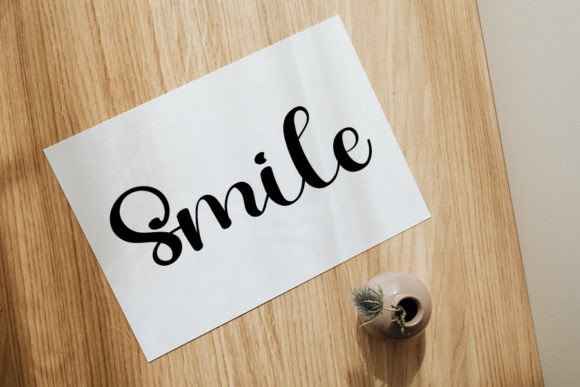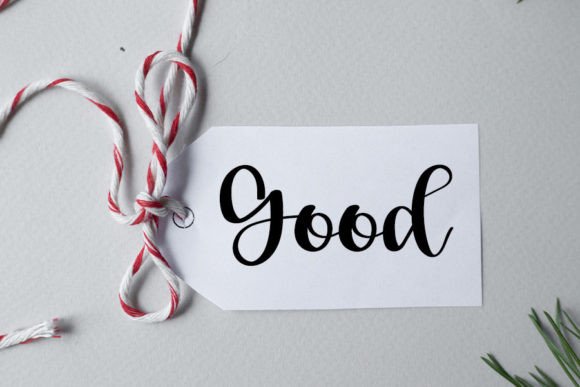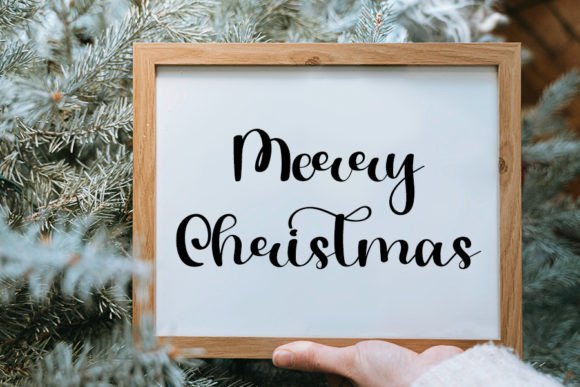
Discover the Elegance of Ghosting Font: Elevate Your Designs with a Timeless Handwritten Style
Are you on the hunt for a font that adds a touch of elegance and sophistication to your designs? Look no further than the Ghosting Font, a beautiful handwritten font that is sure to capture your heart. With its incredibly distinct and timeless style, Ghosting Font is perfect for designers and crafters looking to create spectacular designs that stand out from the crowd.
The Beauty of Ghosting Font
Ghosting Font is a neat and beautiful handwritten font that boasts an elegant touch, making it ideal for a wide range of projects. Whether you’re working on a logo, branding materials, or social media graphics, Ghosting Font is sure to bring a level of sophistication and refinement to your designs. Its unique and distinctive style is sure to set your designs apart, making them truly unforgettable.
What Makes Ghosting Font So Special?
So, what makes Ghosting Font so special? For starters, its handwritten style gives it a personal and organic feel that is hard to replicate with other fonts. The elegant touch that Ghosting Font brings to the table is perfect for designers who want to add a level of refinement and sophistication to their designs. Additionally, the font’s timeless style ensures that it will never go out of fashion, making it a great investment for designers and crafters.
Ghosting Font is incredibly versatile, making it perfect for a wide range of projects. Here are just a few ideas to get you started:
- Logo Design: Use Ghosting Font to create a beautiful and elegant logo that perfectly represents your brand.
- Branding Materials: From business cards to brochures, Ghosting Font is perfect for creating professional and sophisticated branding materials.
- Social Media Graphics: Add a touch of elegance to your social media graphics with Ghosting Font, making them stand out in a crowded feed.
- Wedding and Event Planning: Use Ghosting Font to create beautiful and elegant wedding invitations, programs, and other event materials.
Tips for Using Ghosting Font
Here are a few tips for using Ghosting Font to get the most out of this beautiful handwritten font:
- Pair it with Other Fonts: Experiment with pairing Ghosting Font with other fonts to create a unique and visually appealing combination.
- Use it in Headlines: Ghosting Font is perfect for headlines, where its elegant touch can really shine.
- Experiment with Colors: Try out different colors and textures to see how they interact with Ghosting Font and enhance its beauty.
In conclusion, Ghosting Font is a beautiful and elegant handwritten font that is sure to elevate your designs to the next level. With its incredibly distinct and timeless style, Ghosting Font is perfect for designers and crafters looking to create spectacular designs that stand out from the crowd. Whether you’re working on a logo, branding materials, or social media graphics, Ghosting Font is a great choice. So why wait? Fall in love with Ghosting Font and use it to create designs that are truly unforgettable.
Key Features of Ghosting Font:
- Beautiful handwritten font
- Elegant touch
- Incredibly distinct and timeless style
- Perfect for a wide range of projects